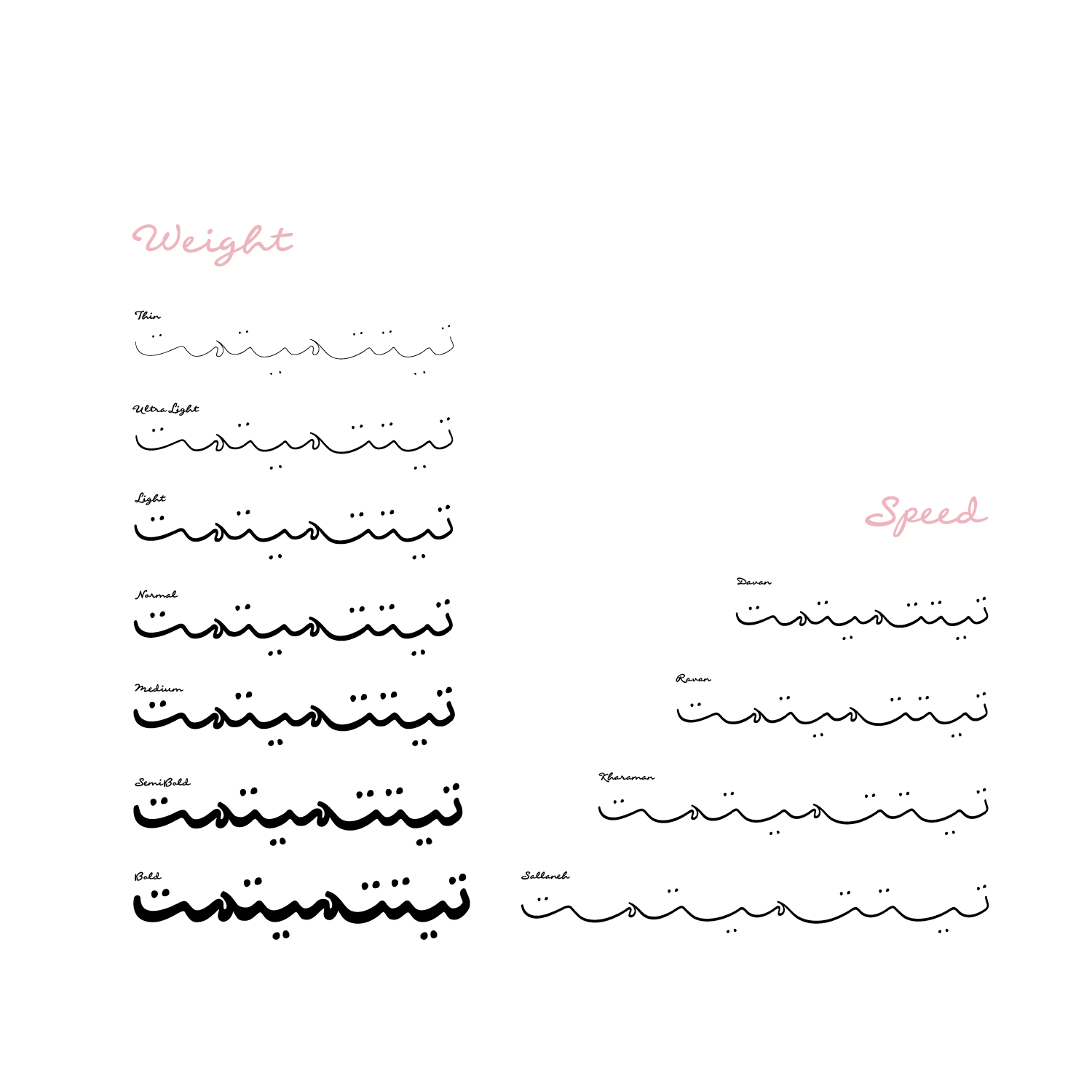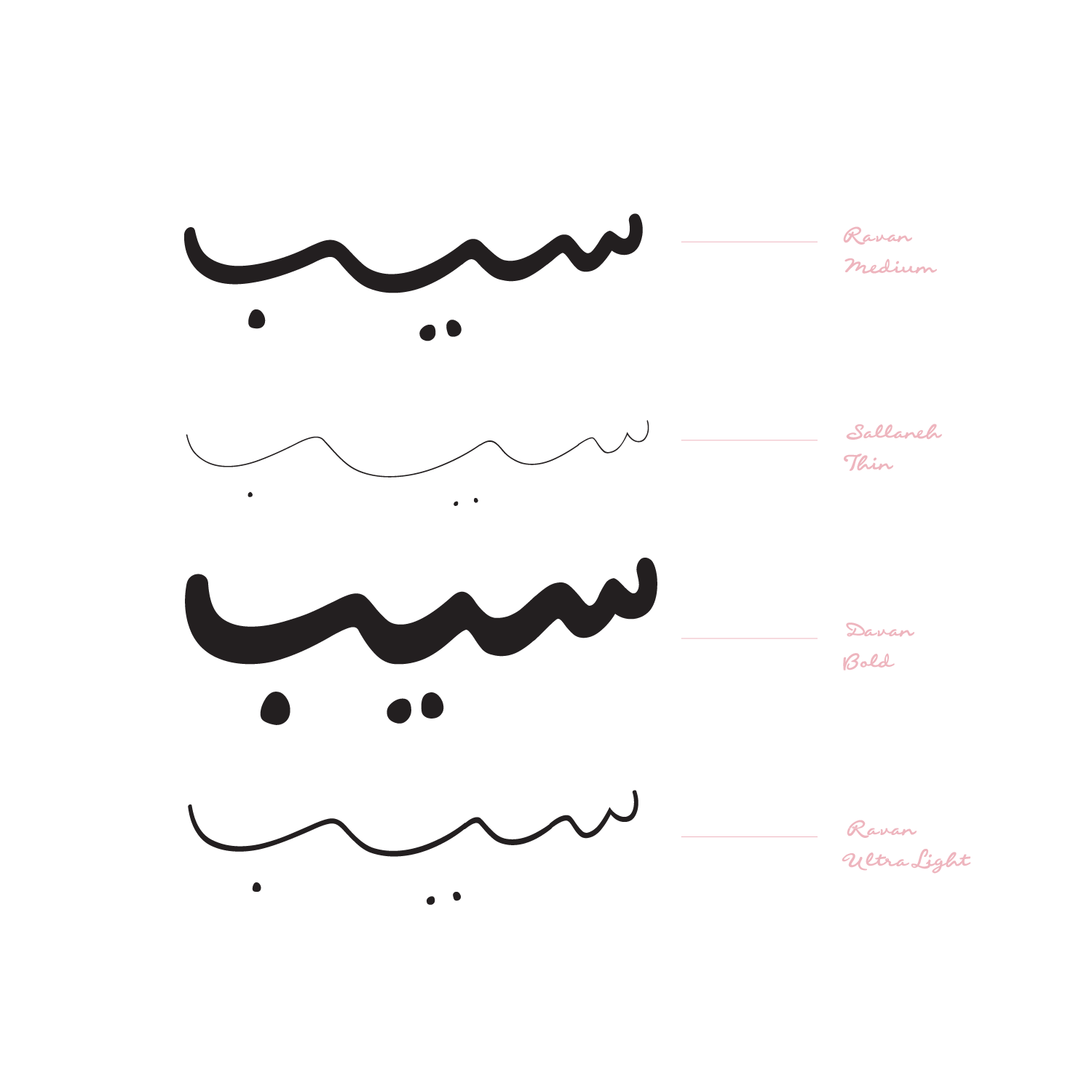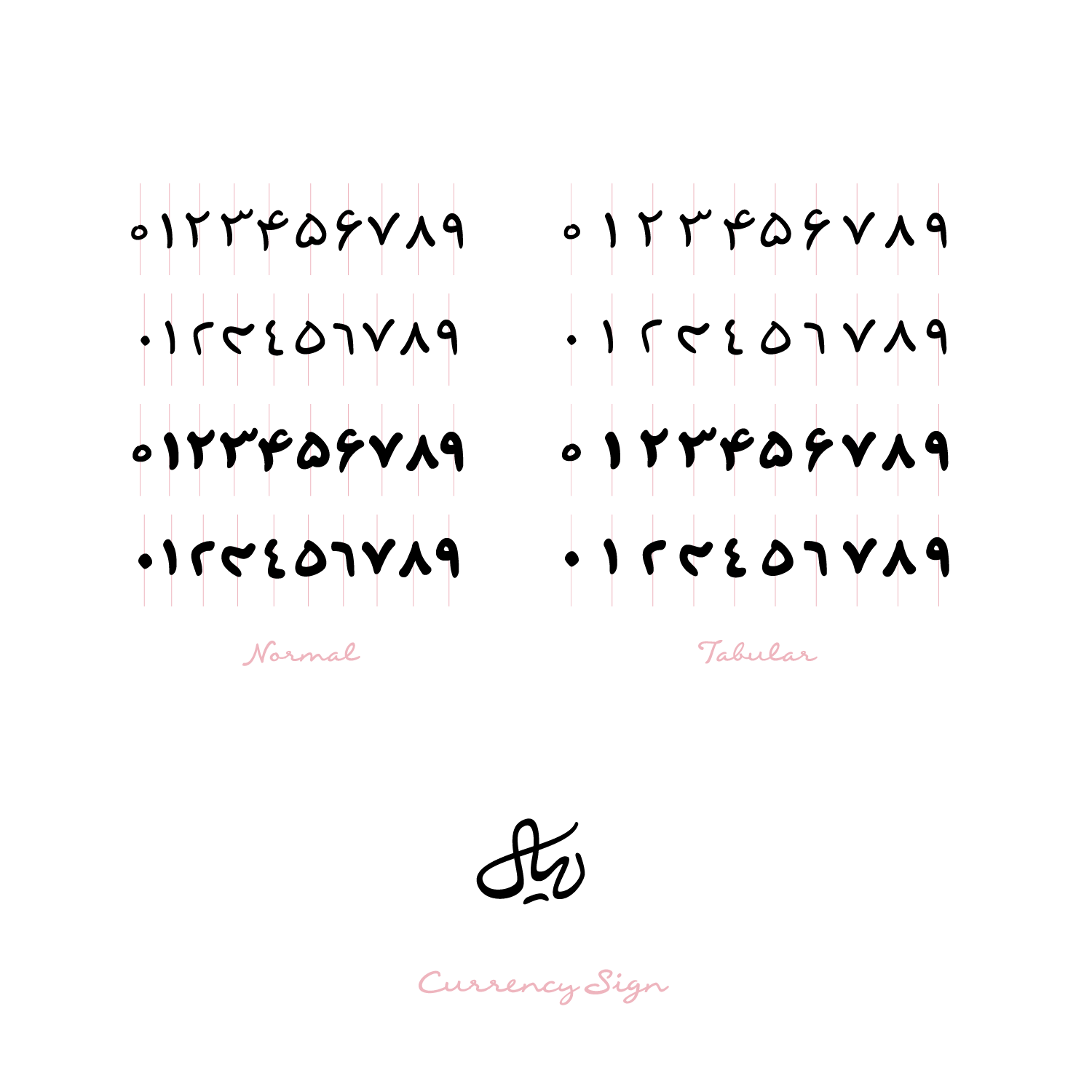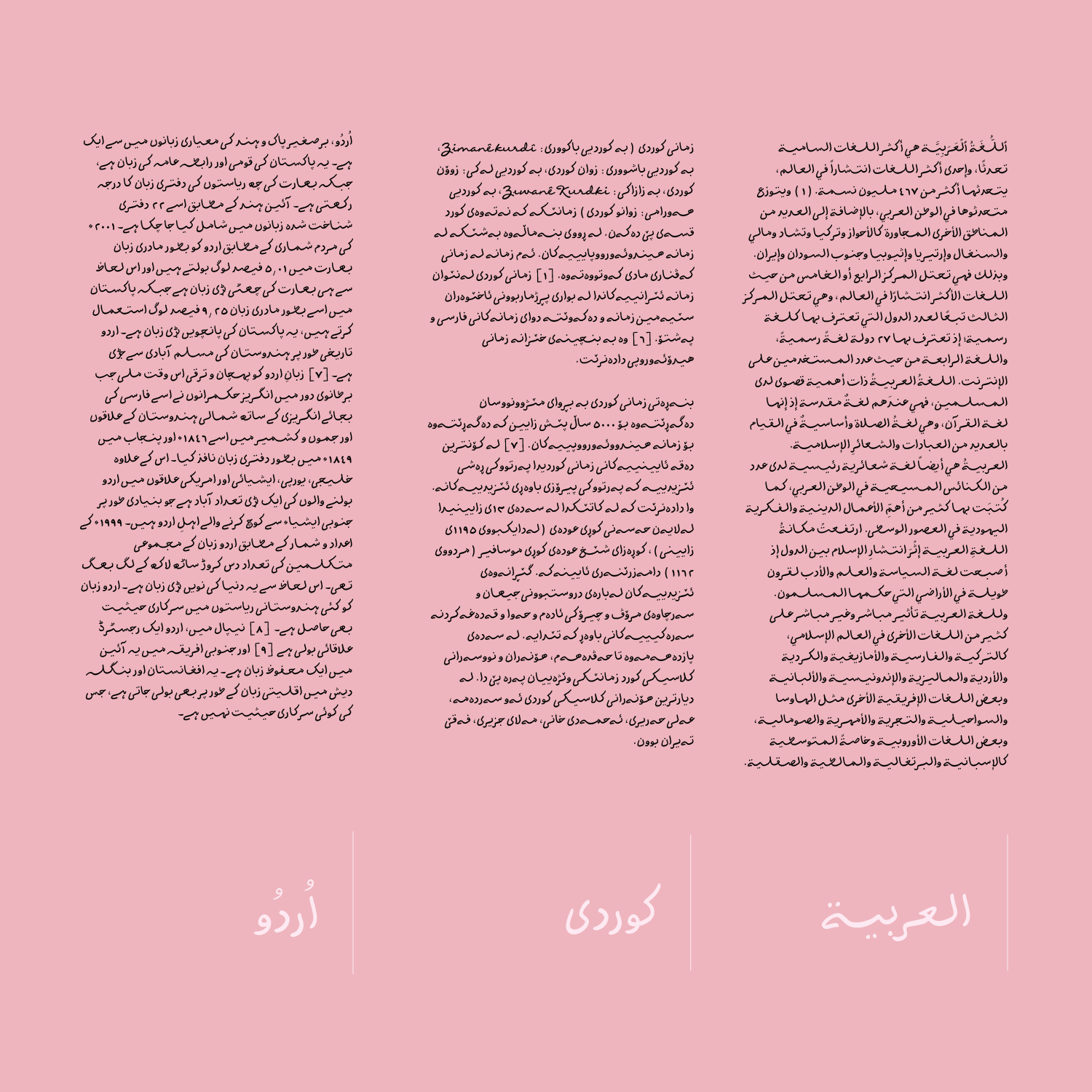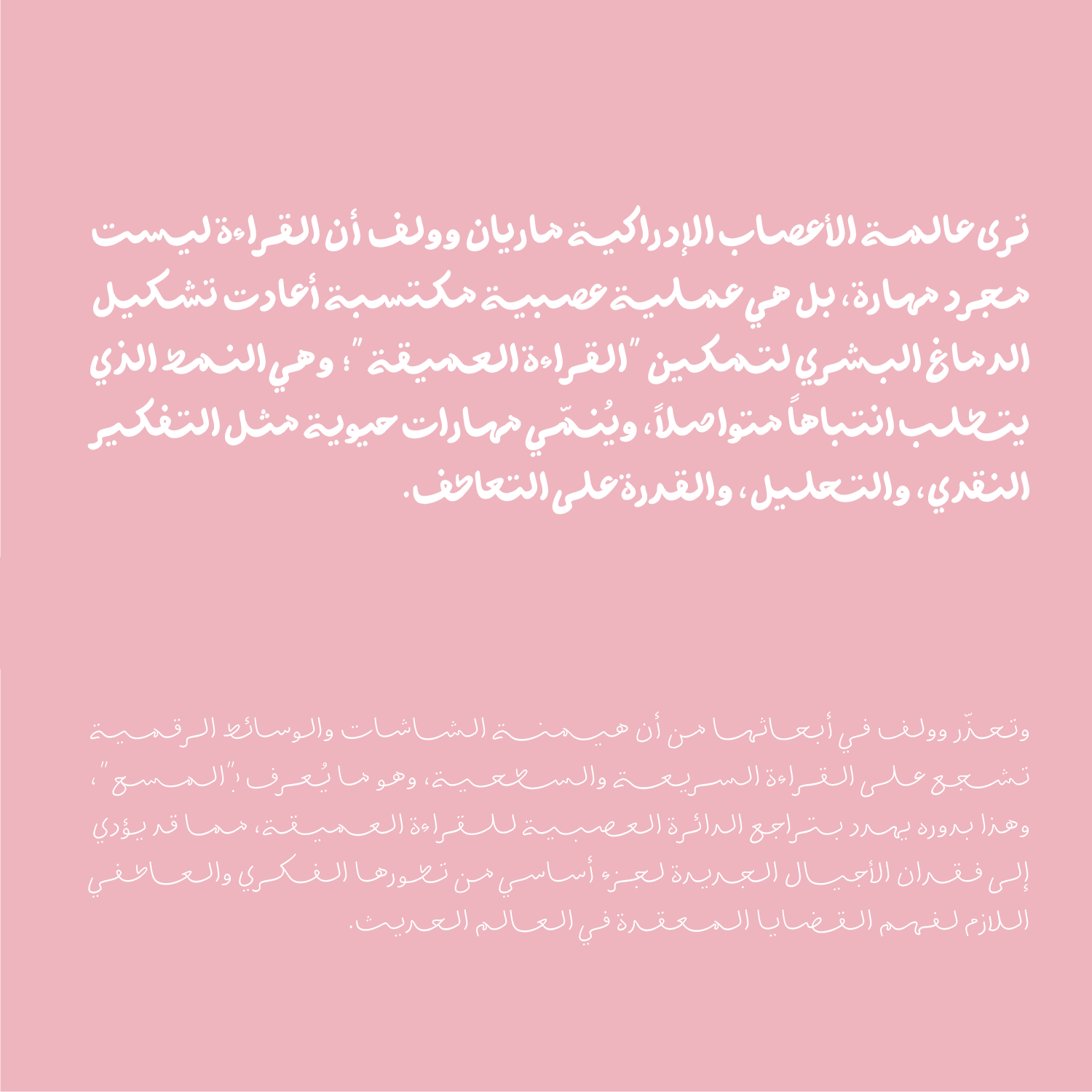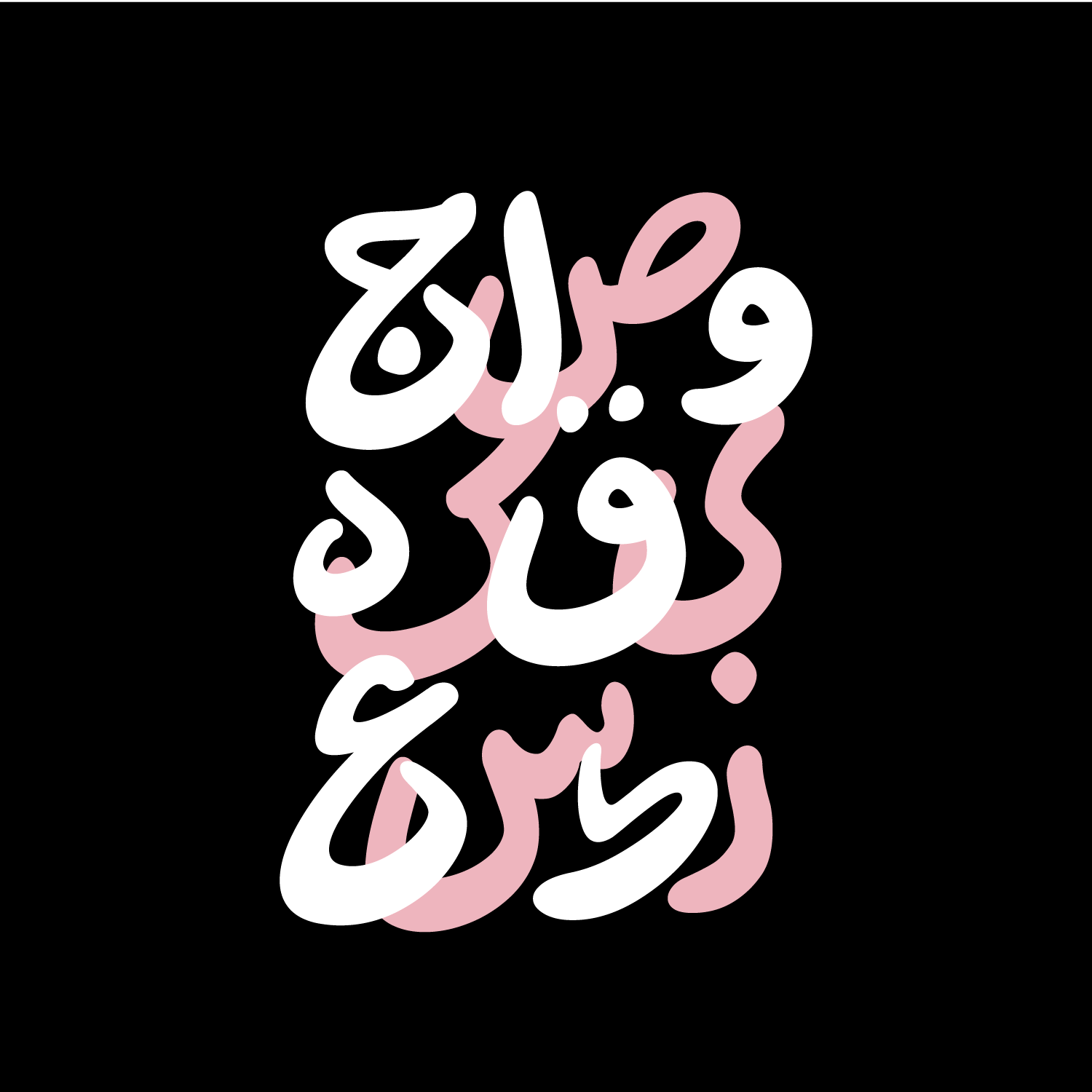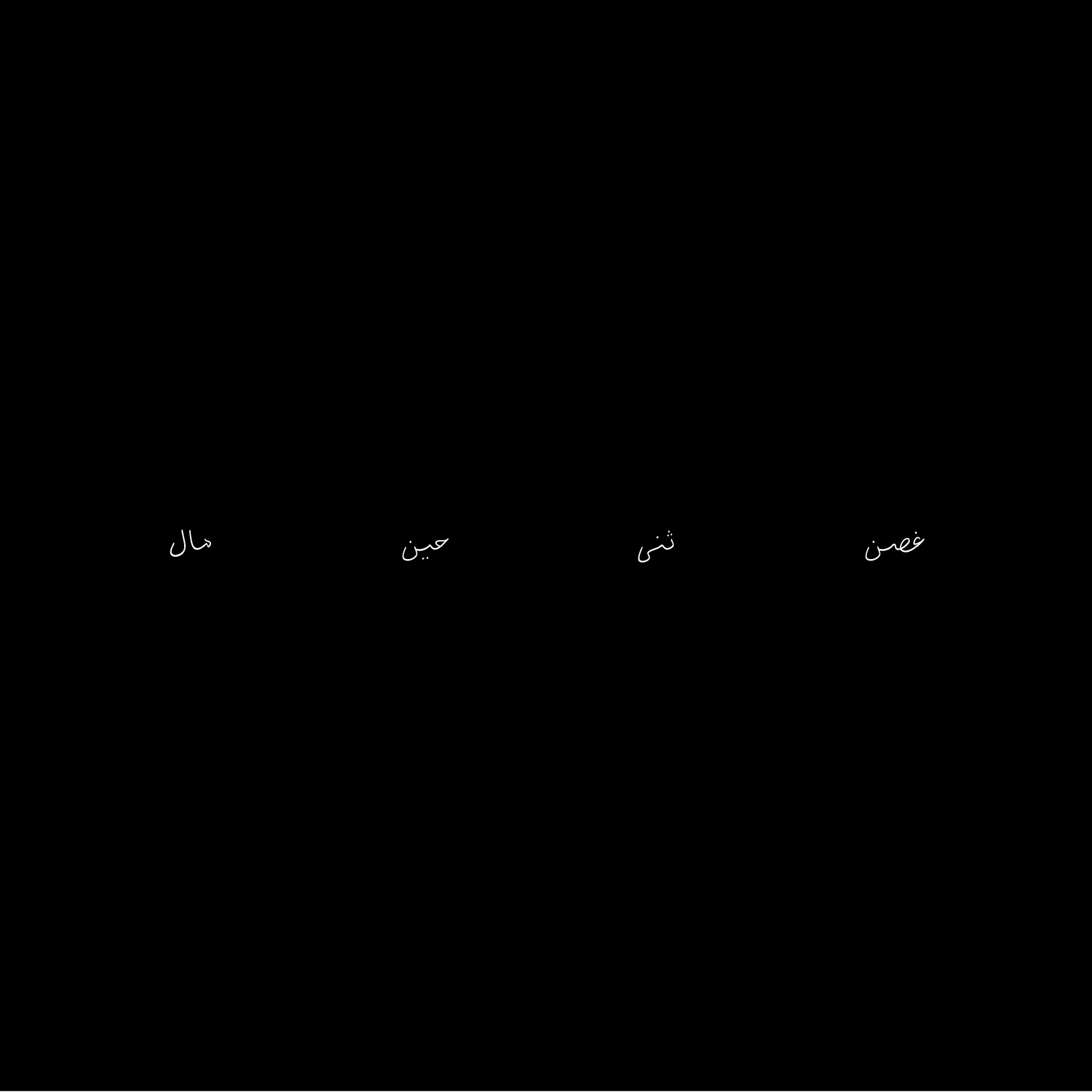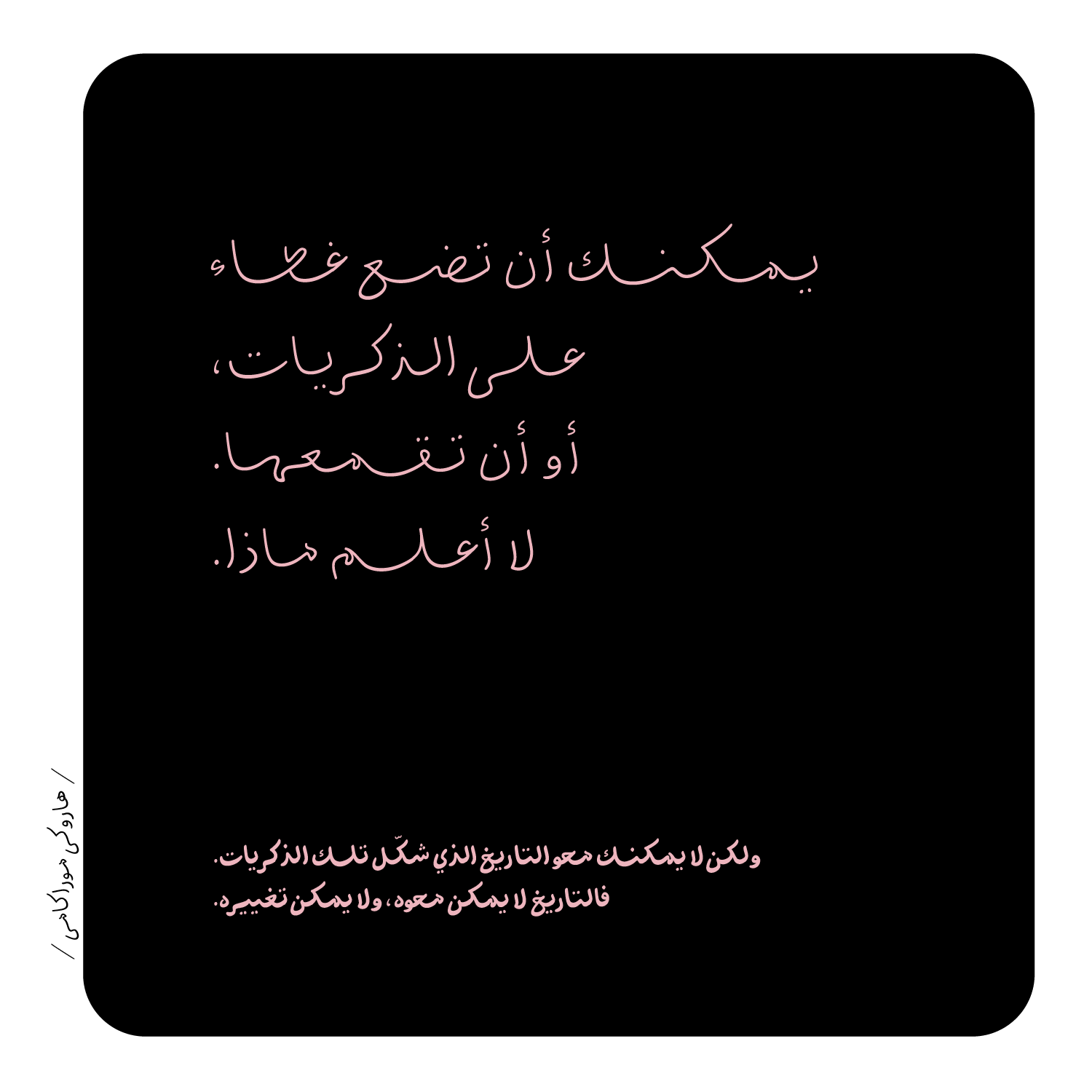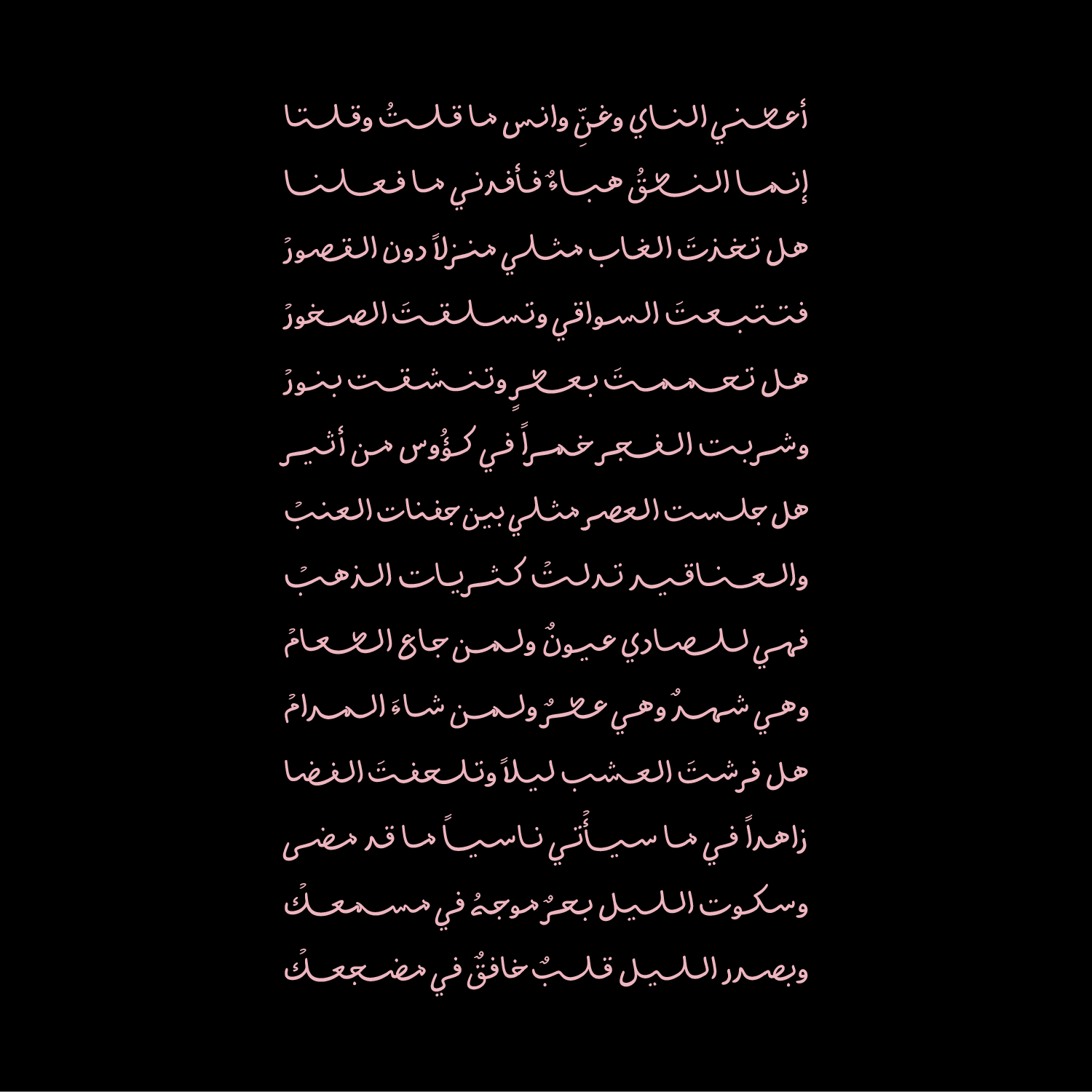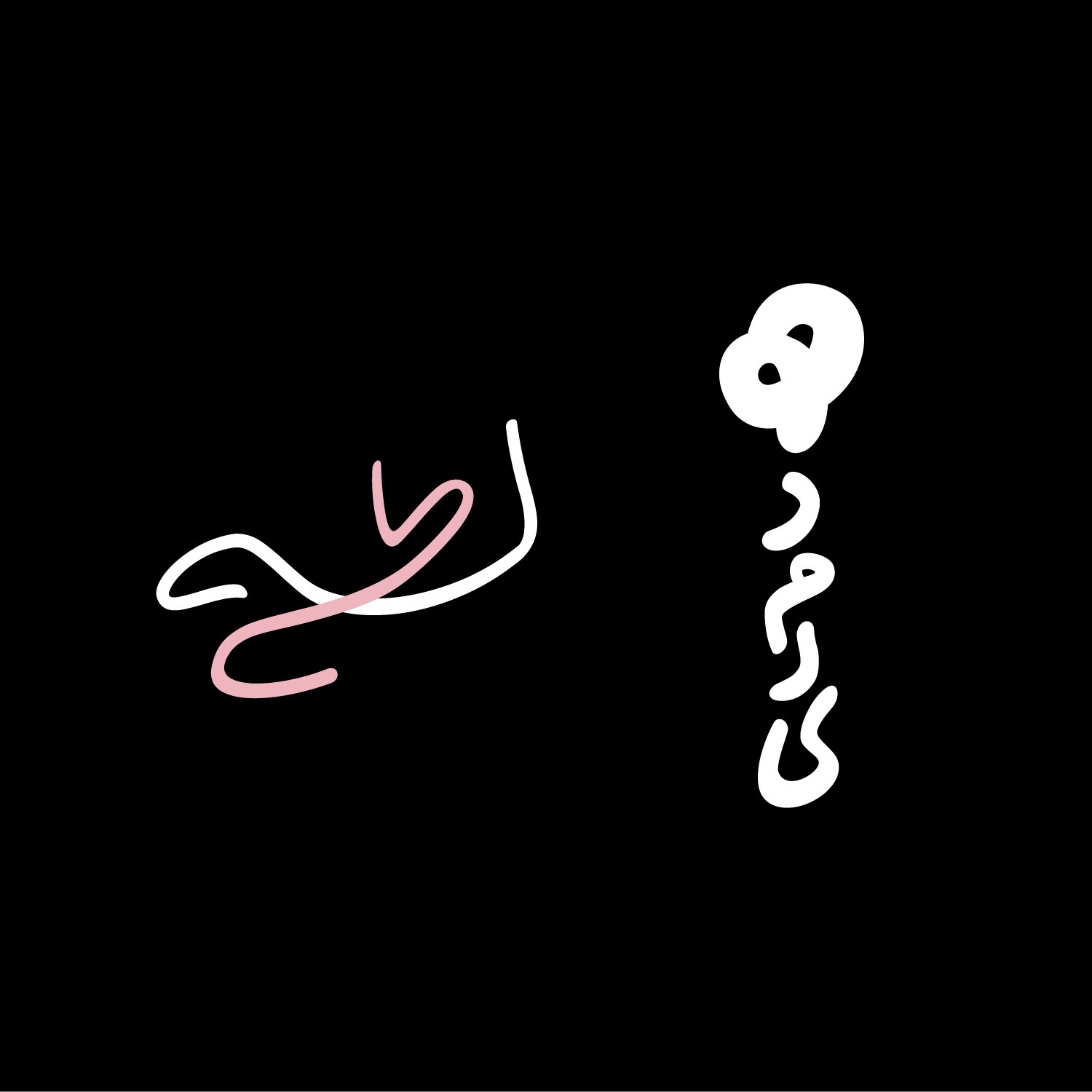
Haiku
Weight (ranging from Thin to Bold) and Speed (Davan / Ravan / Kharaman / Sallaneh).
The numerals are designed in both standard, text-friendly form and a monospaced version, and the Rial currency symbols have been specifically designed for this release of the font.
Variable Font: 2 axes (weight and Speed).